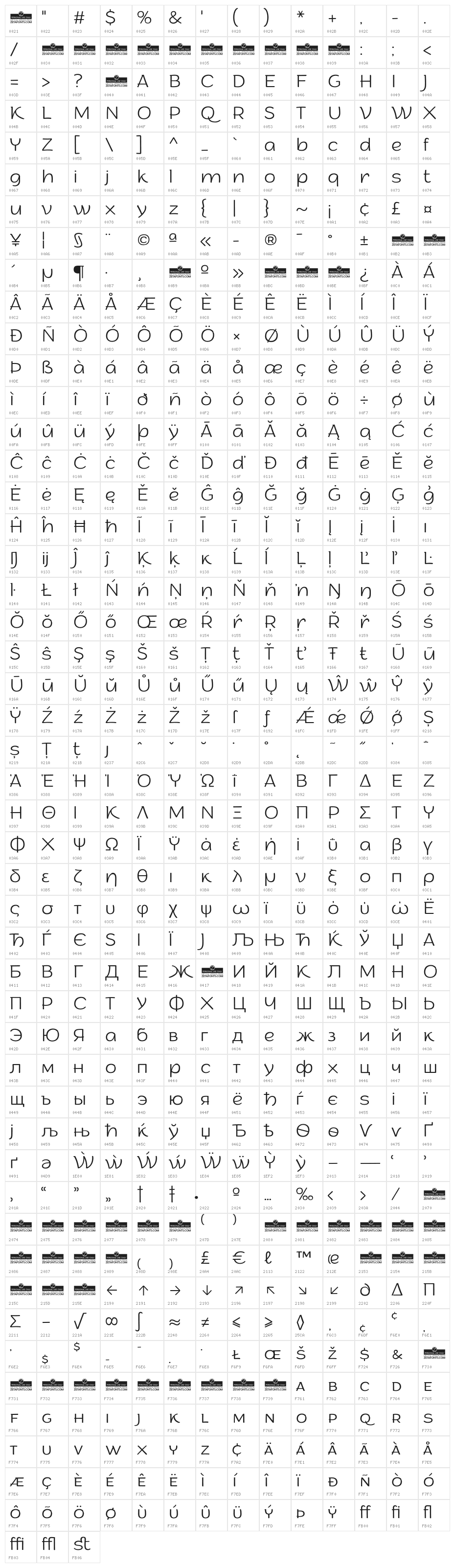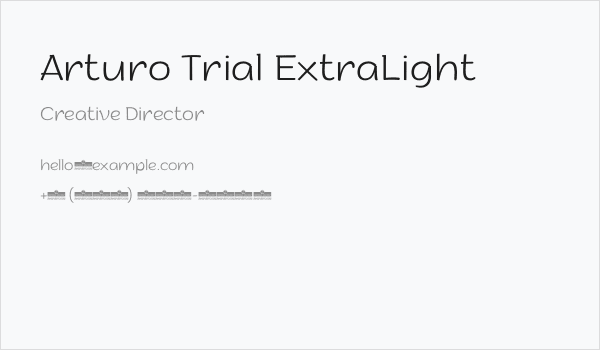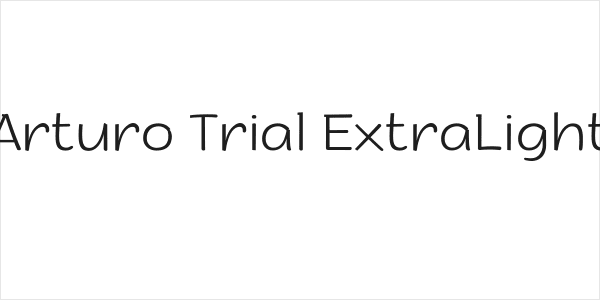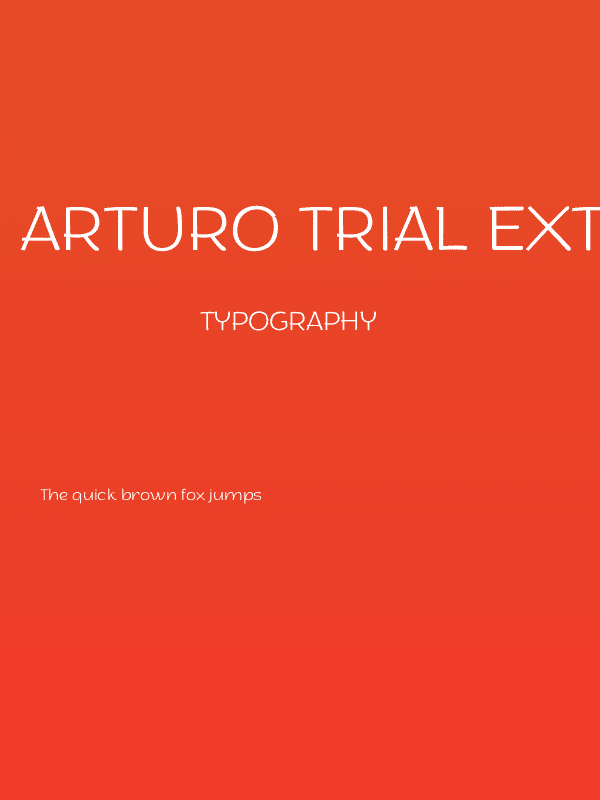
Arturo Trial ExtraLight Font
This font features a clean and modern design with smooth curves and a minimalist aesthetic. The characters are crafted with a consistent stroke width, giving it a uniform appearance. The uppercase letters are slightly taller than the lowercase, providing a balanced look. The font maintains a friendly and approachable feel, making it suitable for various design needs. Its simplicity and elegance make it versatile for both digital and print media. The special characters are designed to blend seamlessly with the alphabet, ensuring a cohesive look across all text elements.
| Proposed Projects | Ideal for branding, web design, and editorial projects where a modern and approachable look is desired. |